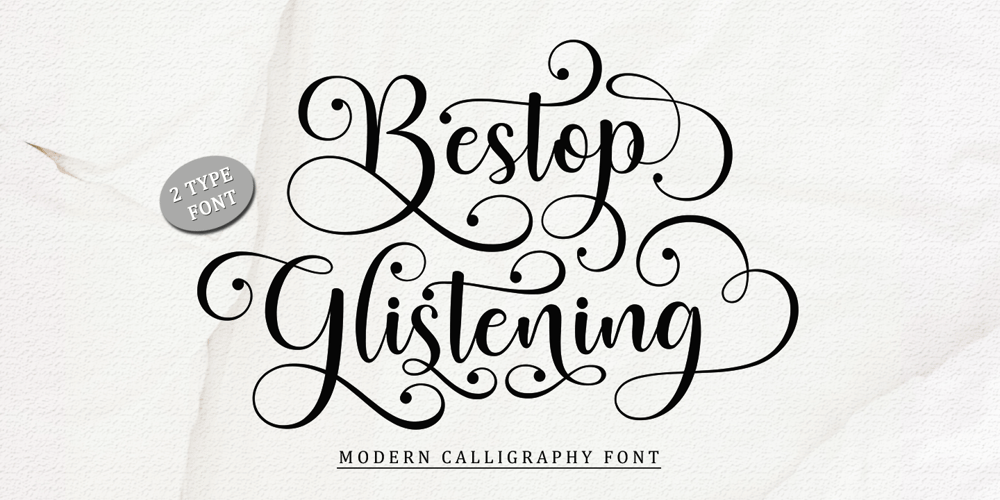
Bestop Glistening Font Family was designed by Muhammad Nazar and published by Bungletter. Bestop Glistening contains 2 styles and family package options. Bestop Glistening is a modern script font that features a classic and elegant touch.Bestop Glistening is attractive because it is sleek, clean, feminine, sensual, glamorous, simple and very easy to read, thanks to its many beautiful letter connections. I also offer a number of decent stylistic alternatives for some of the letters. Classic style is very suitable to be applied in various formal forms such as invitations, labels, restaurant menus, logos, fashion, make up, stationery, novels, magazines, books, greeting/wedding cards, packaging, labels or all kinds of advertising purposes. . . . . .Contains full set:-Has 2 font models, Regular and Bold-Uppercase-Lowercase-Alternative-Ligatures-Punctuation-Number-Multilingual support.need help or have questions let me know. I’m happy to help.Thanks & Congratulations on the Design!